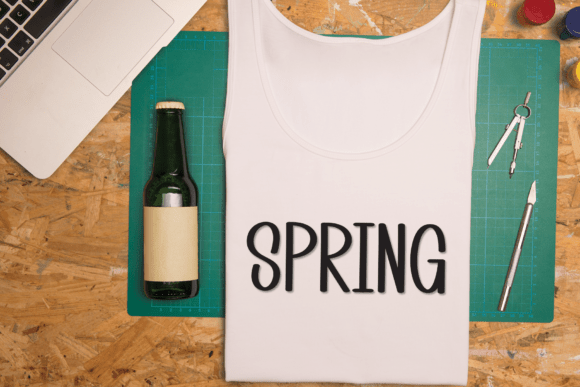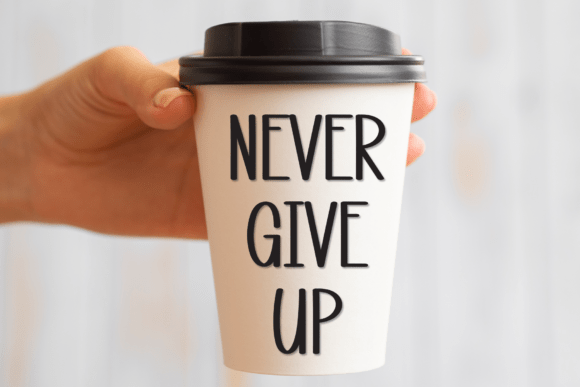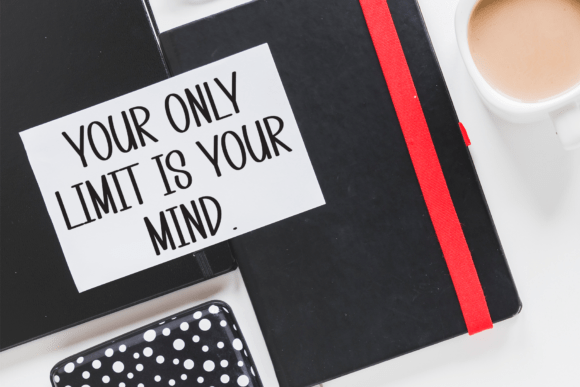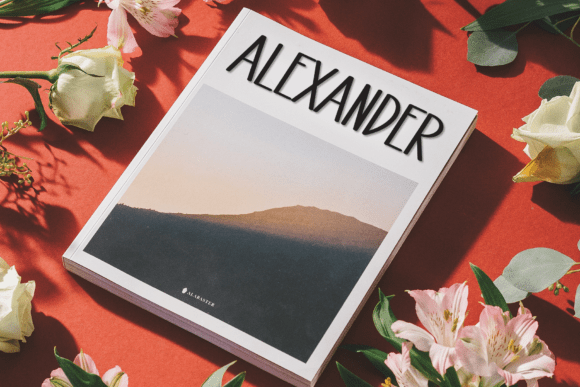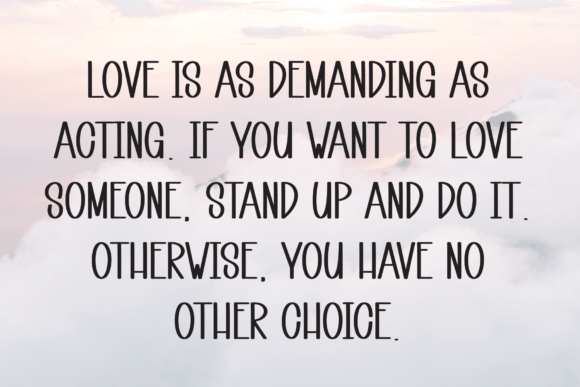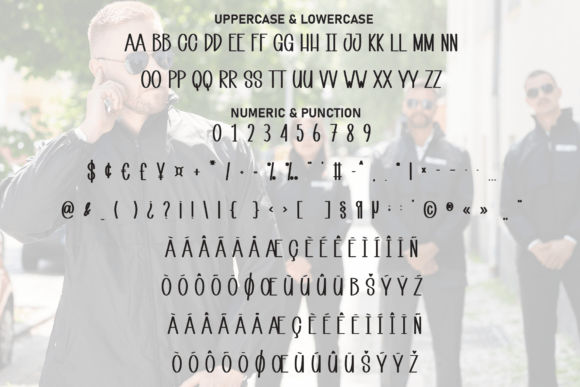
Introducing Bodyguard Font: The Ultimate Display Font for Adding a Touch of Whimsy
Are you on the hunt for a font that exudes warmth, friendliness, and playfulness? Look no further than Bodyguard Font, a stunning handwritten display font that’s sure to capture the hearts of designers and crafters alike. With its cheer-filled strokes and irresistible charm, this font is perfect for adding a delightful touch to a wide range of design projects.
The Perfect Font for Wedding Invitations and Cards
Bodyguard Font is particularly well-suited for wedding invitations, cards, and other special occasion designs. Its sweet and endearing personality shines through in every letter, making it an excellent choice for couples looking to add a personal and whimsical touch to their wedding stationery. Whether you’re designing a formal wedding invitation or a more casual save-the-date card, Bodyguard Font is sure to bring a smile to your guests’ faces.
A Versatile Font for a Variety of Design Needs
While Bodyguard Font is perfect for wedding designs, its versatility means it can be used for a wide range of projects. From party invitations and birthday cards to branding and packaging design, this font’s playful charm can add a touch of fun and personality to any creative ensemble. Its highly legible and easy-to-read design makes it suitable for both digital and print applications.
Key Features of Bodyguard Font
- Handwritten display font: Bodyguard Font boasts a unique, handwritten aesthetic that’s perfect for adding a personal touch to your designs.
- Playful and cheerful: With its bouncy strokes and carefree personality, this font is guaranteed to bring a smile to your audience’s faces.
- Sweet and friendly: Bodyguard Font’s warm and approachable demeanor makes it perfect for designs that require a touch of whimsy and charm.
- Highly legible: Despite its playful nature, Bodyguard Font remains highly legible and easy to read, making it suitable for a wide range of applications.
Tips for Using Bodyguard Font in Your Designs
Bodyguard Font is a one-of-a-kind display font that’s sure to bring a touch of whimsy and charm to your designs. With its playful personality, sweet aesthetic, and versatility, it’s the perfect choice for designers and crafters looking to add a little fun and personality to their creative ensemble. So why wait? Download Bodyguard Font today and start immersing yourself in its delightful charm!